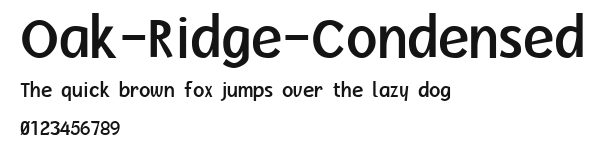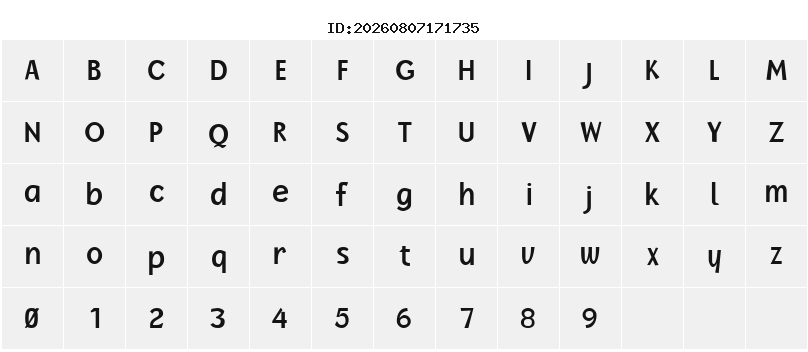
Oak-Ridge-Condensed Preview
• Font Name: Oak-Ridge-Condensed
• Full Font Name: Oak-Ridge-Condensed Bold
About Oak-Ridge-Condensed.ttf
Oak-Ridge-Condensed.ttf is a modern, elegant sans-serif font designed for ultimate readability and visual harmony. Perfect for branding, headlines, web design, and print materials.